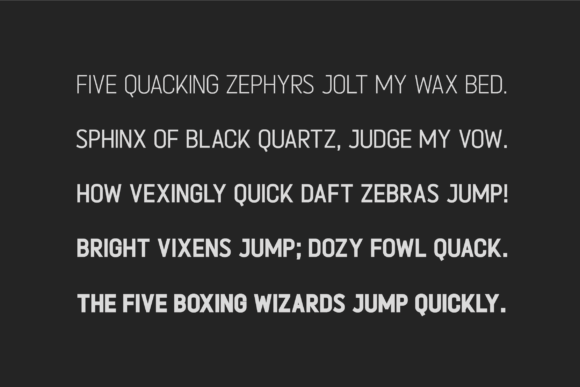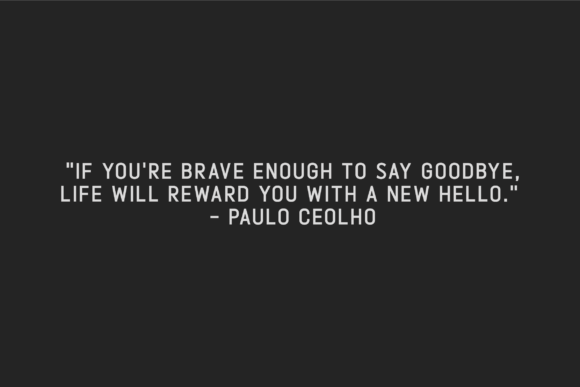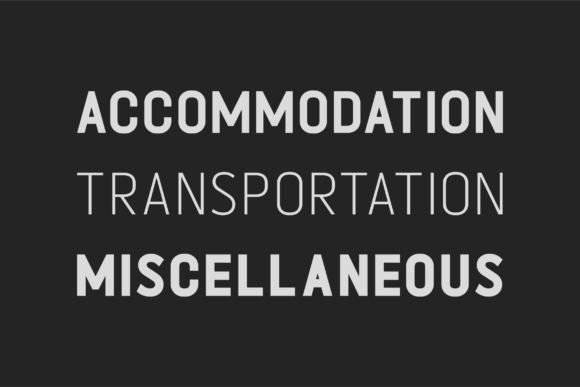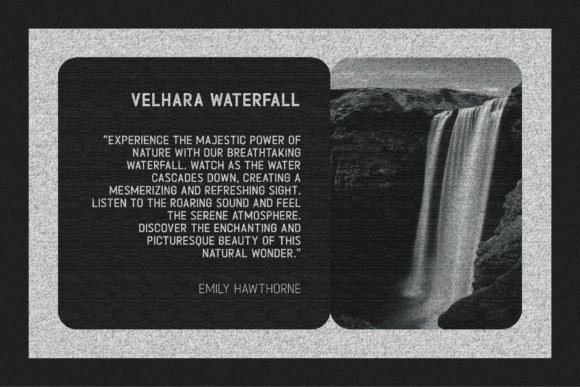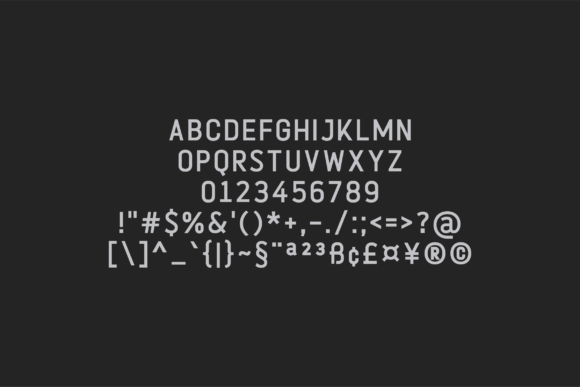
Introduction to Shelution Font
Have you ever stared at a blank canvas, trying to bring your creative vision to life, only to feel stuck and unsure of where to begin? For designers, this moment is all too familiar. But what if the right font could be the spark that ignites your imagination and sets your project ablaze?
Enter the Shelution Font, a masterfully crafted sans serif font that effortlessly elevates any creative project to new heights. With its perfect balance of sophistication and simplicity, Shelution Font is the ultimate design resource for those seeking to create high-quality, visually stunning work.
Key Features of Shelution Font
- High-quality design for creative projects, suitable for various applications such as logos, graphics, and typography.
- Features a transparent background, allowing for seamless integration with different backgrounds and designs.
- Offers a clean and modern aesthetic, ideal for contemporary designs and branding materials.
Honest Review: Shelution Font
- ✨ High-quality design: The Shelution Font is meticulously crafted with attention to detail, ensuring a polished look in any design.
- ✨ Transparent background: The font’s transparent background makes it easy to customize and combine with other design elements.
While the Shelution Font excels in many areas, there are some limitations to consider.
- ⚠️ Limited font weights: The font currently only comes in a few weights, which may limit its versatility in certain design situations.
- ⚠️ Not ideal for complex text: Due to its modern design, the Shelution Font may not be the best choice for complex or large blocks of text.
Tips for Getting the Most Out of Shelution Font
Use Shelution Font on a transparent background to create a seamless design. Experiment with different font sizes and styles to add depth to your design. This versatile font is also suitable for social media graphics and promotional materials.
Shelution Font is commonly used in branding, logos, and typography projects. Its clean and modern design makes it perfect for creating a professional and cohesive visual identity for your business or creative project.